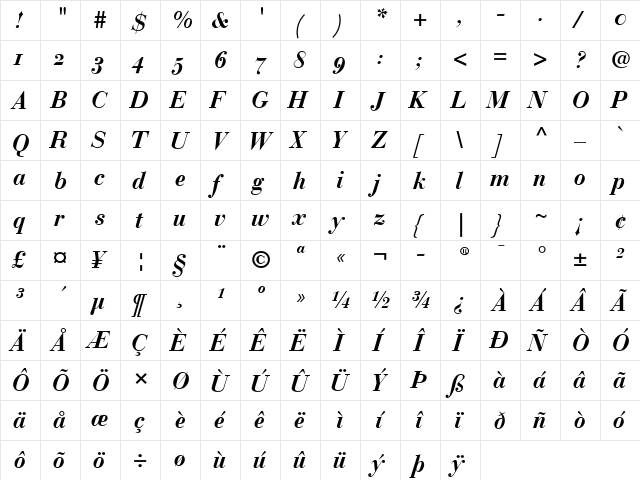
BauerBodoni RomanOsF Bold Italic
Design Context for BauerBodoni RomanOsF Typeface
BauerBodoni RomanOsF offers clean, dependable letterforms without strong stylistic allegiance, making it a practical choice for designers who need flexibility. The slanted form adds forward momentum and visual energy. Its bold stroke weight gives it real presence on the page.
Pro Tip: Use BauerBodoni RomanOsF for emphasis, pull quotes, and subheadings where its slanted energy can add rhythm to the layout.